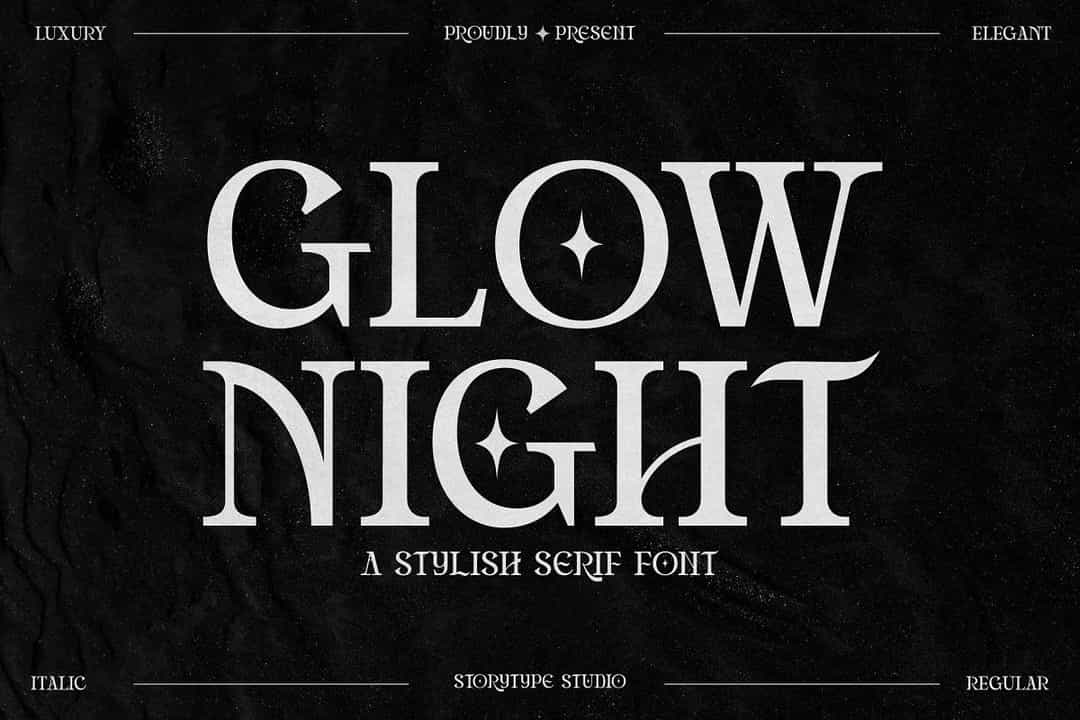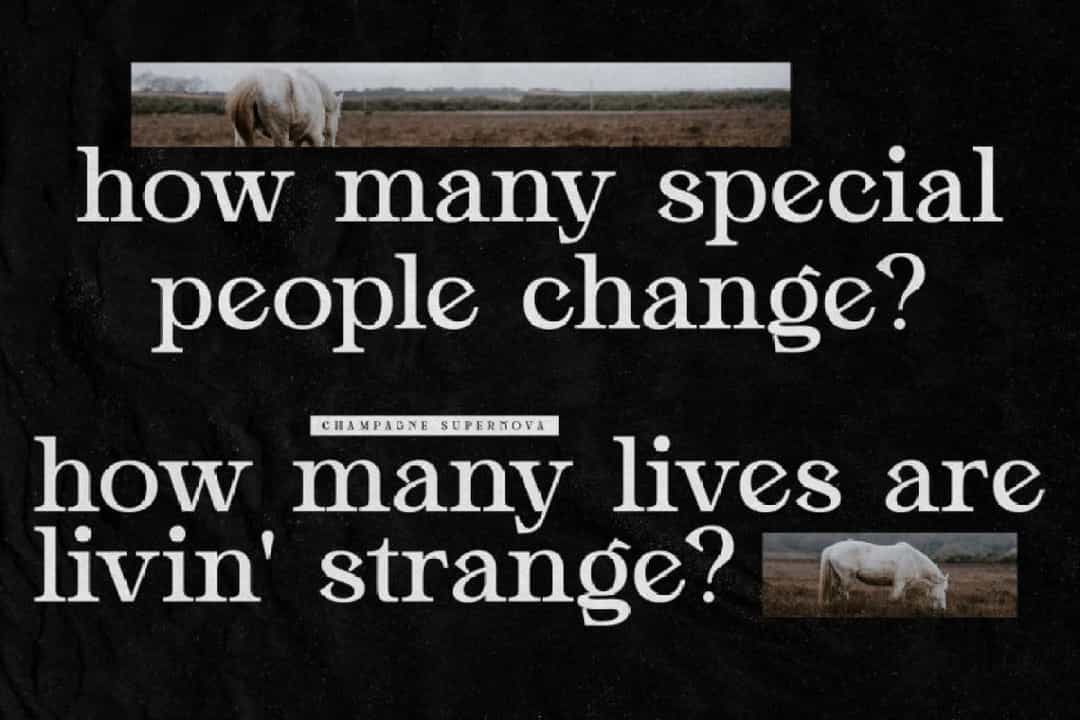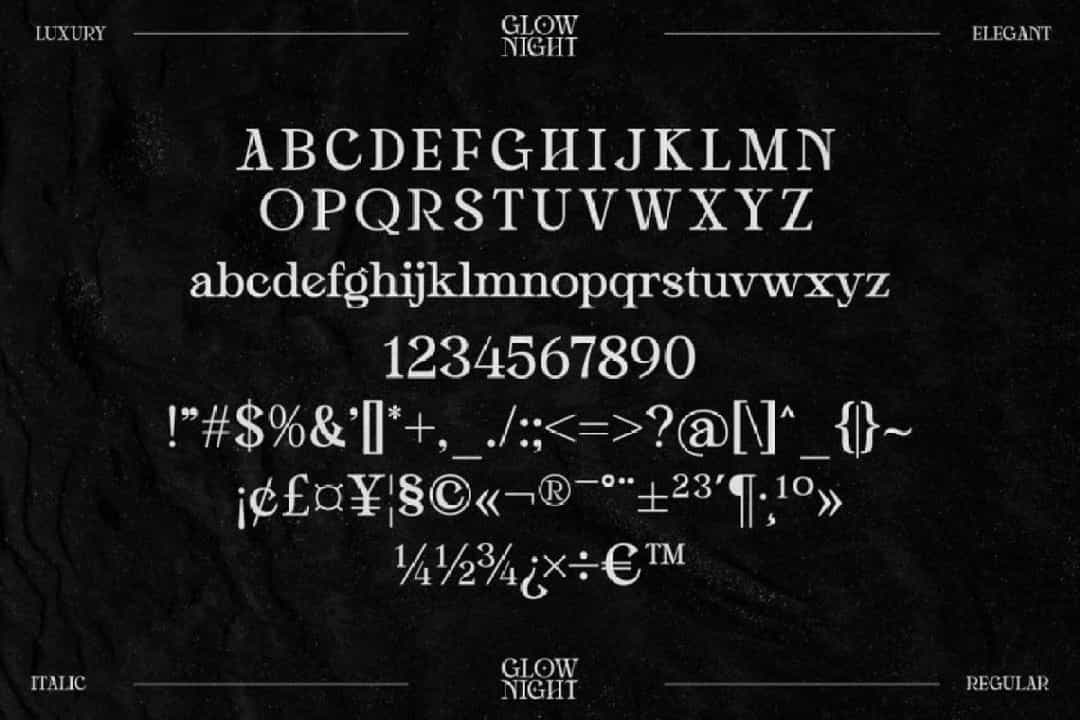
Discover Glow Night Font, part of the Serif collection—a versatile and unique font perfect for adding a personal touch to your projects. Download it for free and enjoy crafting designs with style, from invitations to social media posts. This font is available exclusively for personal use, giving you the freedom to create without limits. Unlock your creativity with Glow Night Font today!
Glow Night is a stylish serif font with an attractive contemporary appearance, ideal for elegant logos, movie/book covers, fashion magazine pages, clothing brands and clothing labels; as well as lettering or quotes and more.